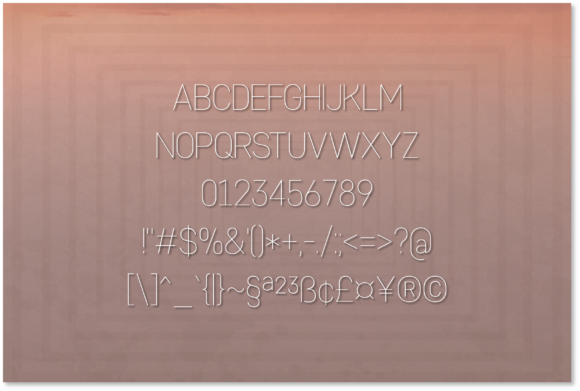
Discover the Elegance of Clarsly Thin Font: A Modern Sans Serif for Every Design Need
In the world of typography, finding the perfect font that balances modernity, elegance, and versatility can be a daunting task. However, for designers and crafters looking for a sleek and sophisticated solution, Clarsly Thin Font emerges as an exceptional choice. This minimalist and modern sans serif font is not only visually appealing but also highly adaptable, making it suitable for a wide range of design applications.
The Essence of Clarsly Thin Font
Clarsly Thin Font embodies the perfect blend of minimalist design and modern elegance. Its sans serif structure provides a clean and crisp look, ensuring that your designs appear both contemporary and refined. The font’s versatility is one of its standout features, allowing it to seamlessly transition from body text to headlines without losing its impact or readability.
Key Features of Clarsly Thin Font
- Minimalist and Modern Design: Clarsly Thin Font boasts a sleek and streamlined aesthetic that instantly elevates any design.
- Elegant Appearance: Its elegant features make it perfect for designs that require a touch of sophistication.
- Versatile Application: From body text to headlines, Clarsly Thin Font adapts effortlessly to various design needs.
- Timeless Touch: The font adds a timeless quality to designs, ensuring they remain relevant and stylish for years to come.
Applications of Clarsly Thin Font
The versatility of Clarsly Thin Font makes it an invaluable asset for designers across various projects. Here are some of the key areas where this font truly shines:
- Digital and Print Media: Whether you’re working on a website, blog, magazine, or brochure, Clarsly Thin Font provides a professional and clean look that enhances readability and aesthetic appeal.
- Branding and Logotypes: The elegant and modern design of Clarsly Thin Font makes it an excellent choice for creating brand identities and logotypes that require a sophisticated touch.
- Packaging and Product Design: For product packaging and design, Clarsly Thin Font offers a sleek and contemporary look that can help products stand out on store shelves.
- Advertising and Marketing Materials: The font’s ability to add a timeless touch to designs makes it perfect for advertising and marketing materials, ensuring campaigns remain stylish and effective.
Why Choose Clarsly Thin Font?
Choosing Clarsly Thin Font for your design projects comes with numerous benefits. Its modern and elegant design ensures your work stands out in a crowded digital landscape. Moreover, its versatility means you can use it across a wide range of projects, reducing the need for multiple fonts and streamlining your design process.
Furthermore, Clarsly Thin Font is designed to be highly legible, making it an excellent choice for body text. Its readability ensures that your content is easily consumed by readers, enhancing the overall user experience.
Clarsly Thin Font is a remarkable addition to any designer’s toolkit. Its blend of minimalist design, modern elegance, and versatility makes it an ideal choice for a wide range of applications. Whether you’re working on digital projects, print materials, branding, or advertising, Clarsly Thin Font is guaranteed to add a timeless touch to your designs. Embrace the elegance and versatility of Clarsly Thin Font and elevate your designs to new heights.
With Clarsly Thin Font, you not only get a font but a design solution that meets the demands of contemporary design while ensuring your work remains stylish and relevant. So, why settle for ordinary when you can add a touch of elegance and modernity to your designs with Clarsly Thin Font?